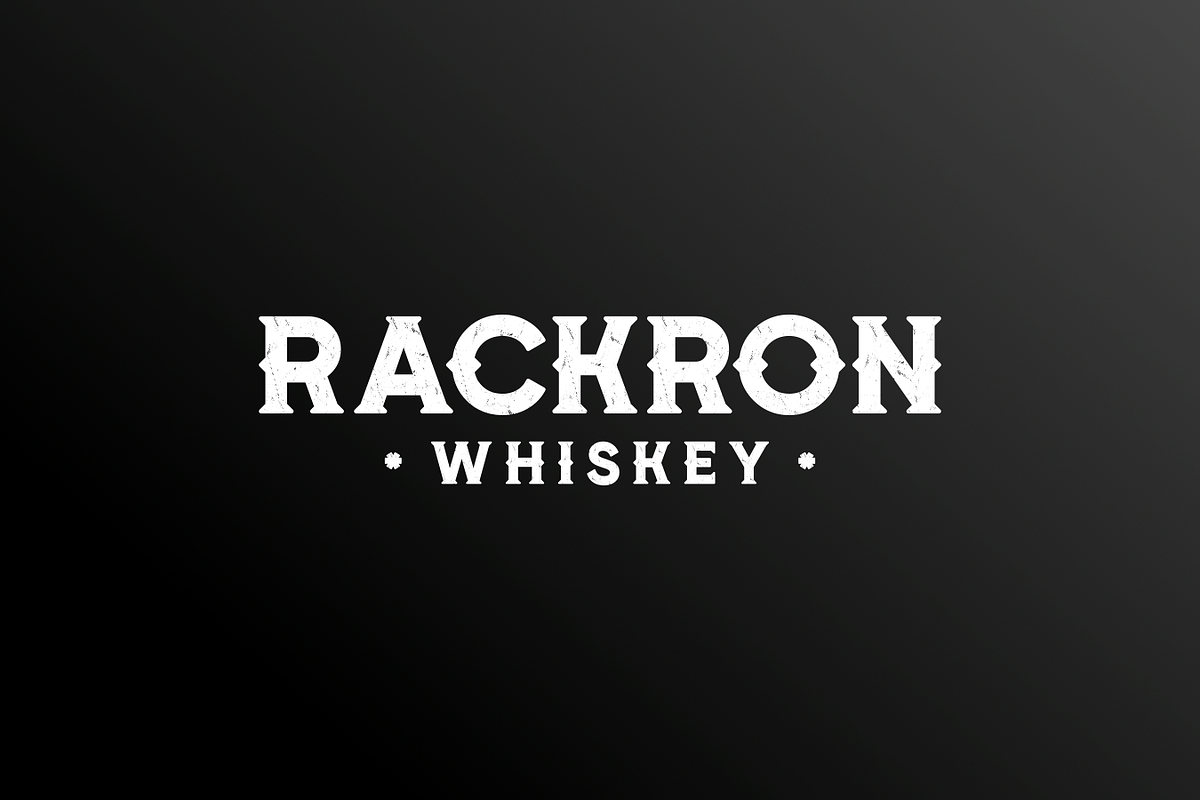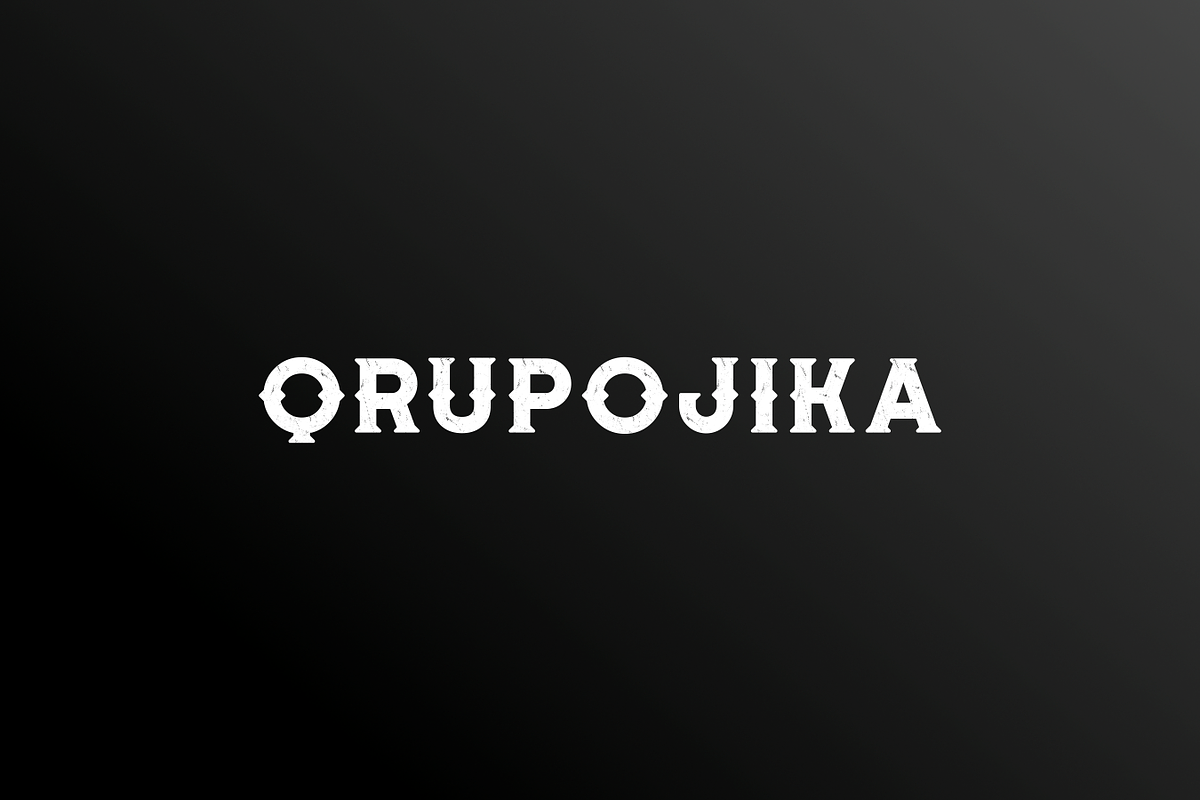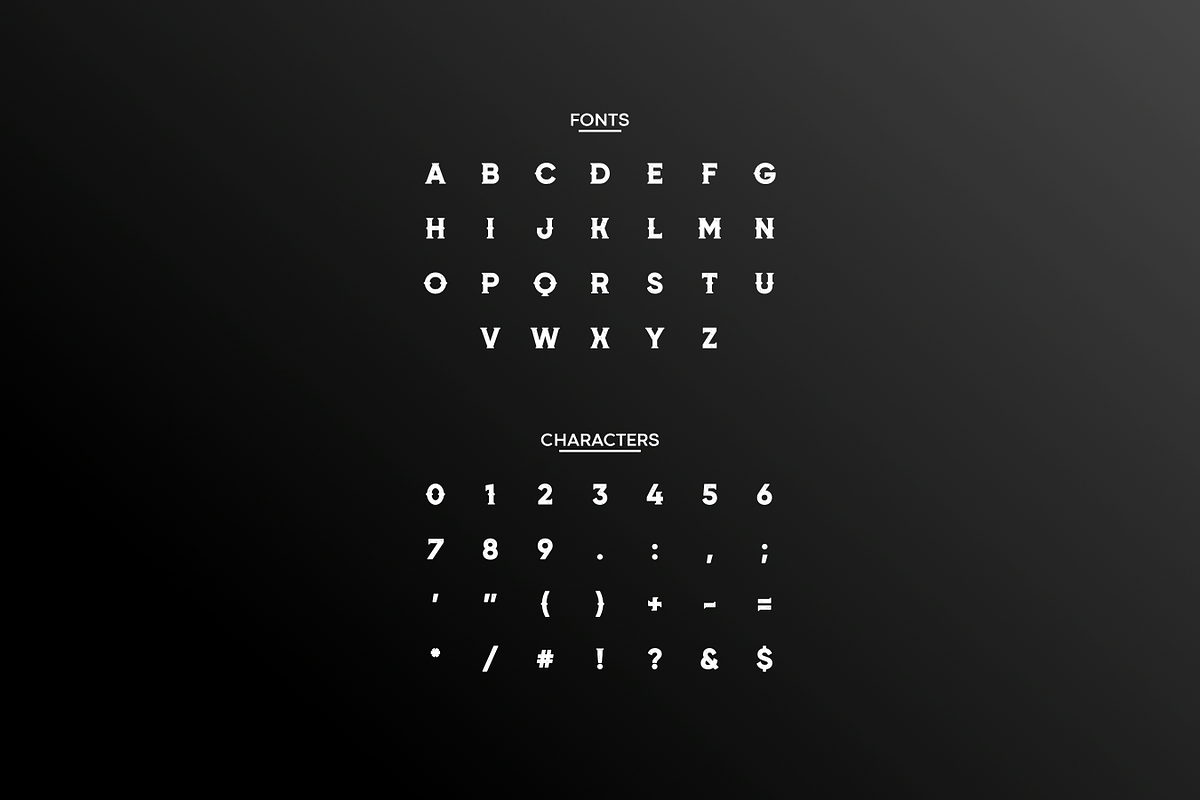
Cropico
Cropico is perfect for screen printing. it's perfect for branding, business cards, posters, logos, magazines, covers, banners, t-shirts and headers, or even large-scale artwork. Cropico comes in retro, vintage, old-fashioned style but looks very modern with rough brush accents, grab it right away for a stunning design.